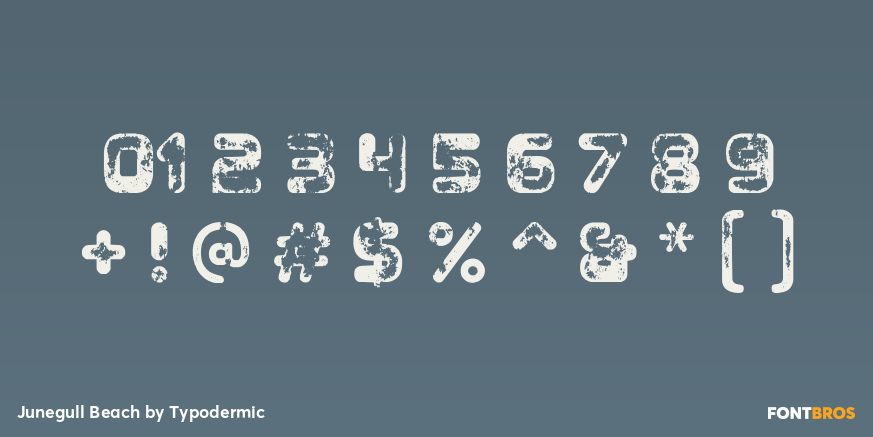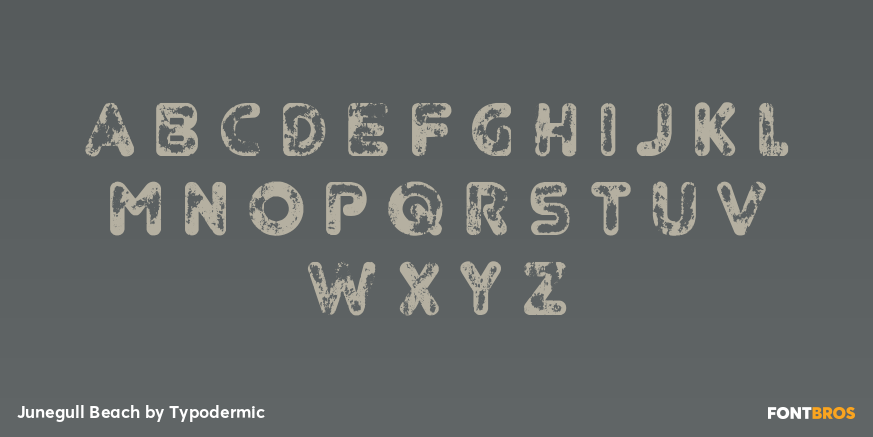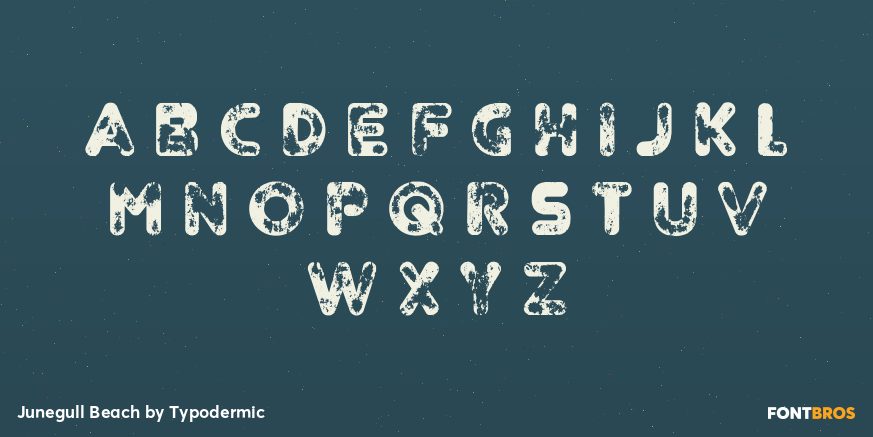
Junegull Beach
Buy NowJunegull Beach takes the family's rounded display skeleton and wears away large, irregular areas from its heavy strokes. The smooth, blunt forms remain recognizable beneath hundreds of rough-edged voids, creating a deeply weathered surface beside the clean standard weights. It has an all-cap appearance: uppercase and lowercase keys both produce cap-height forms with different erosion patterns, so designers can alternate cases when repeated letters need more variation. The texture is built into the outlines rather than added as an external effect.
Use Junegull Beach for boardwalk signage, beach-event titles, surf and water-sports graphics, summer packaging, coastal exhibit headings and displays that benefit from a worn, rounded voice. Its dense erosion works best in short names and headlines at generous sizes on simple, high-contrast backgrounds. Pair it with a clean Junegull weight for small labels, technical details or extended copy.